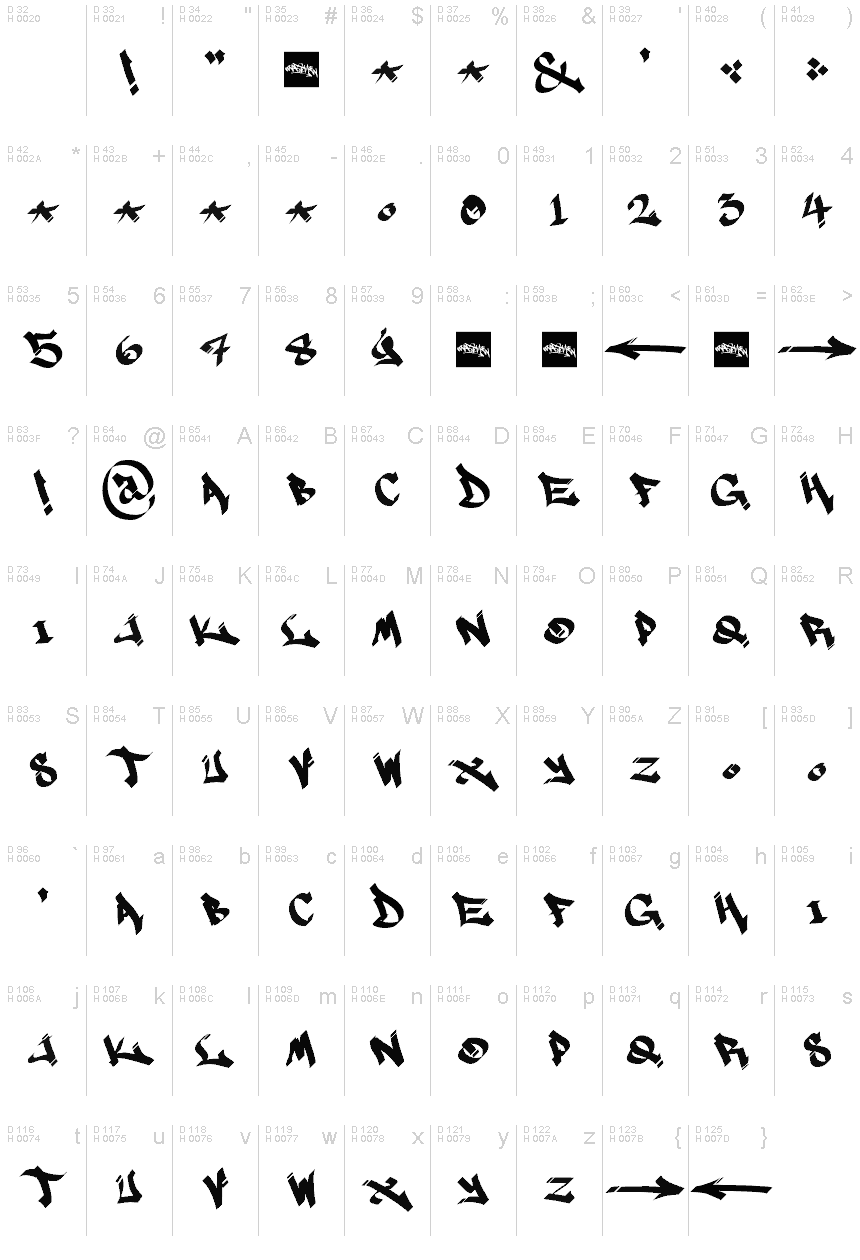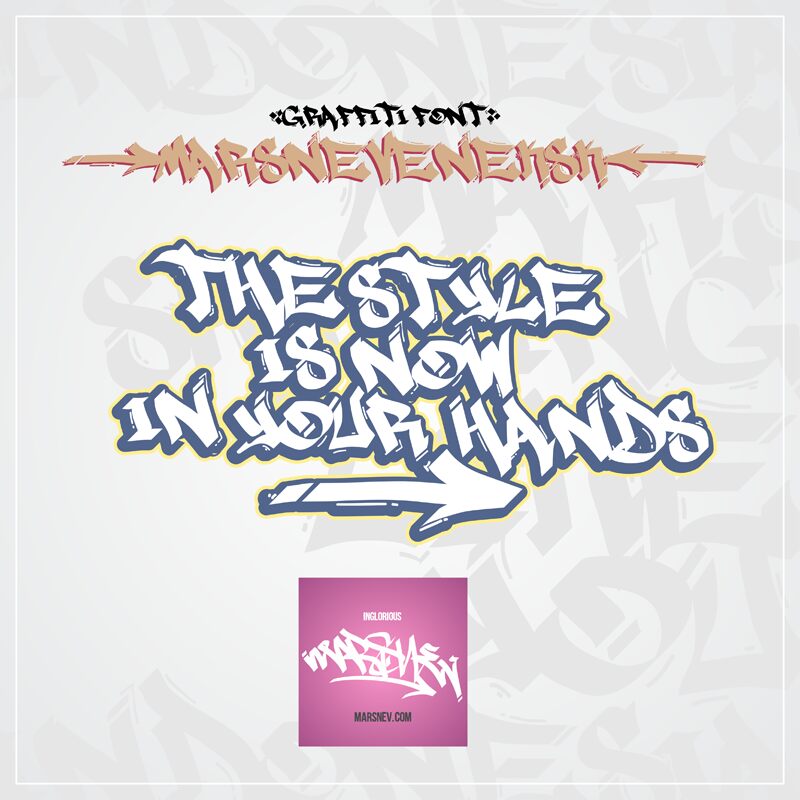
MARSNEVENEKSK Clean
Marsneveneksk Clean is a bold, graffiti-inspired font that commands attention. Designed by Marsnev, this expanded typeface exudes an urban, gritty aesthetic, with sharp lines and an unconventional flow that evokes the energy of street art. Its dynamic, expressive quality lends itself well to a variety of applications, from album covers and event posters to packaging and branding. The font's unique character and versatility make it a compelling choice for designers seeking to infuse their work with a raw, edgy visual impact.
Marsneveneksk Clean's distinctive style could elevate a range of design projects, from modern apparel designs to impactful editorial layouts. Its striking appearance and bespoke feel make it a versatile tool for creative professionals looking to inject a sense of urban edge and raw authenticity into their work.